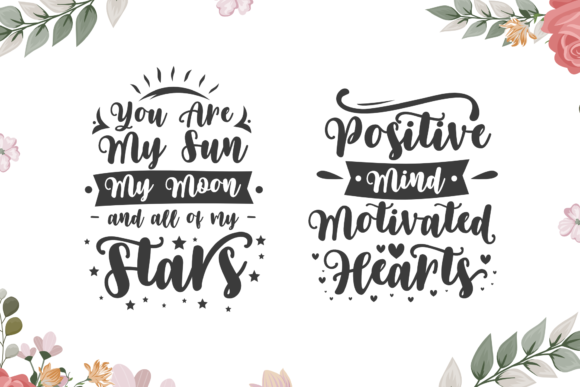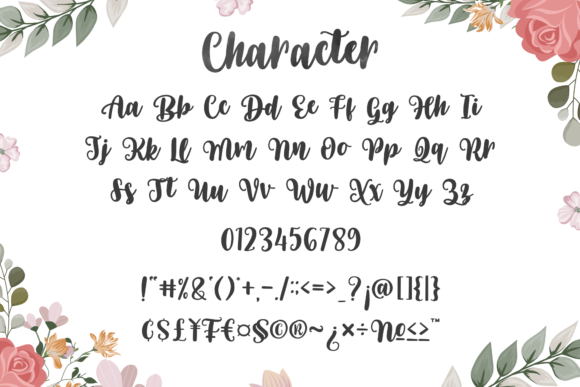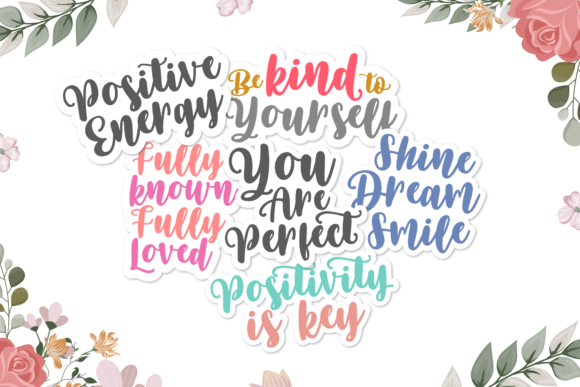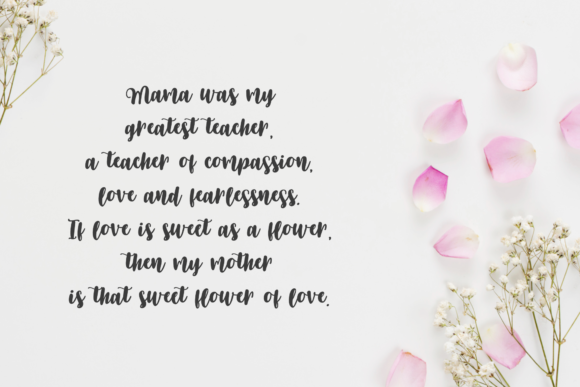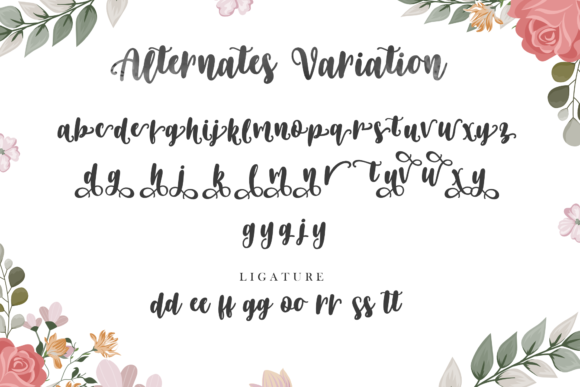
Austerlin Font: Elevate Your Designs with Charming Script Elegance
Are you on the hunt for a font that injects a dose of whimsy and sophistication into your creative projects? Look no further than Austerlin, a captivating script font designed to make your designs stand out from the crowd. With its charming, playful characters that seem to dance along the baseline, Austerlin is the perfect addition to your typographic arsenal.
The Allure of Austerlin
Austerlin boasts a unique charm that sets it apart from more traditional fonts. Its script characters exude a sense of playfulness and elegance, making it an ideal choice for designers and crafters looking to add a touch of personality to their work. Whether you’re designing wedding invitations, branding materials, or digital content, Austerlin’s distinctive style is sure to leave a lasting impression.
One of the standout features of Austerlin is its PUA (Private Use Area) encoding. This means that accessing the font’s extensive range of glyphs and swashes is incredibly easy. With PUA encoding, you can effortlessly incorporate intricate details and flourishes into your designs, taking them to the next level. No more tedious searching for the perfect character – Austerlin’s PUA encoding puts everything you need at your fingertips.
Austerlin’s versatility knows no bounds. This font can be used across a wide range of creative projects, from:
- Wedding and event invitations
- Digital content, such as blog headers and social media graphics
- Stationery and greeting cards
Wherever your creativity takes you, Austerlin is the perfect companion. Its unique charm and flexibility make it an excellent choice for designers and crafters looking to push the boundaries of their work.
Why Choose Austerlin?
So, what sets Austerlin apart from other script fonts on the market? Here are just a few reasons why designers and crafters are falling in love with this charming font:
- Unique character set: Austerlin’s playful characters are unlike anything you’ve seen before. Their dancing baseline and whimsical flair make them a joy to work with.
- Ease of use: With PUA encoding, accessing glyphs and swashes has never been simpler. This means you can focus on creating, rather than getting bogged down in technicalities.
- Versatility: Austerlin’s adaptability makes it suitable for a wide range of projects, from elegant wedding designs to playful digital content.
As you explore Austerlin’s capabilities, you’ll quickly discover why it’s becoming a favorite among designers and crafters. Its unique blend of playfulness and sophistication is sure to elevate your designs and leave a lasting impression on your audience.
In the world of typography, Austerlin is a shining star. This lovely script font is more than just a collection of characters – it’s a key to unlocking your creative potential. With its charming, playful design and PUA encoding for effortless use, Austerlin is the perfect addition to your design toolkit. So why wait? Dive into the world of Austerlin today, and discover a font that will make your designs dance!